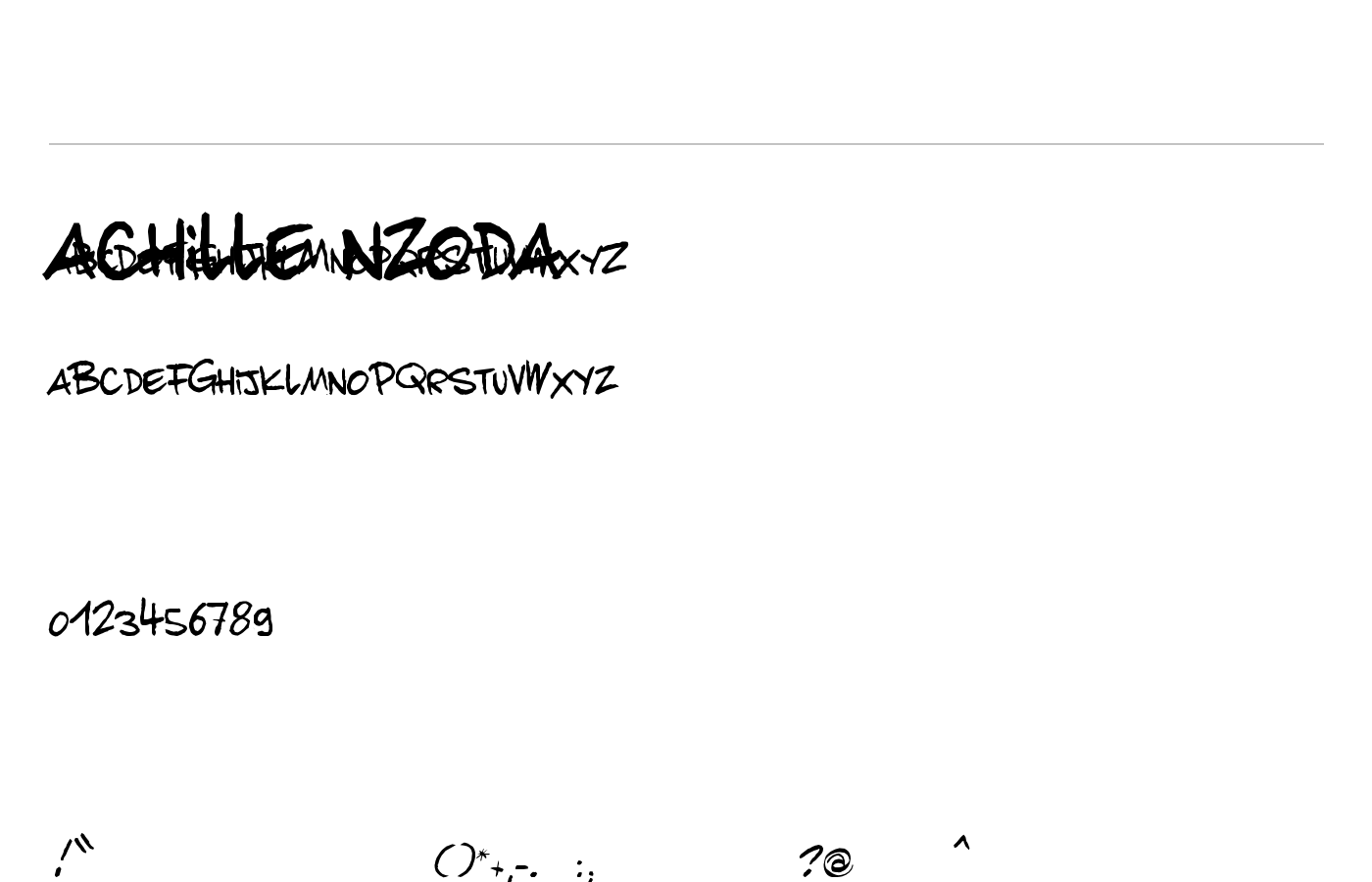
Achille Nzoda is a playful and expressive handwritten font with an irregular, organic stroke style that mimics casual brush or marker writing. Its slightly condensed letterforms and quirky shapes give it an energetic, informal feel, making it ideal for creative projects, youth-oriented branding, or casual digital content that seeks to convey personality and spontaneity. This font works best in headlines, logos, and artistic designs where a lively, approachable vibe is desired.
achille nzoda Font
About achille nzoda Font